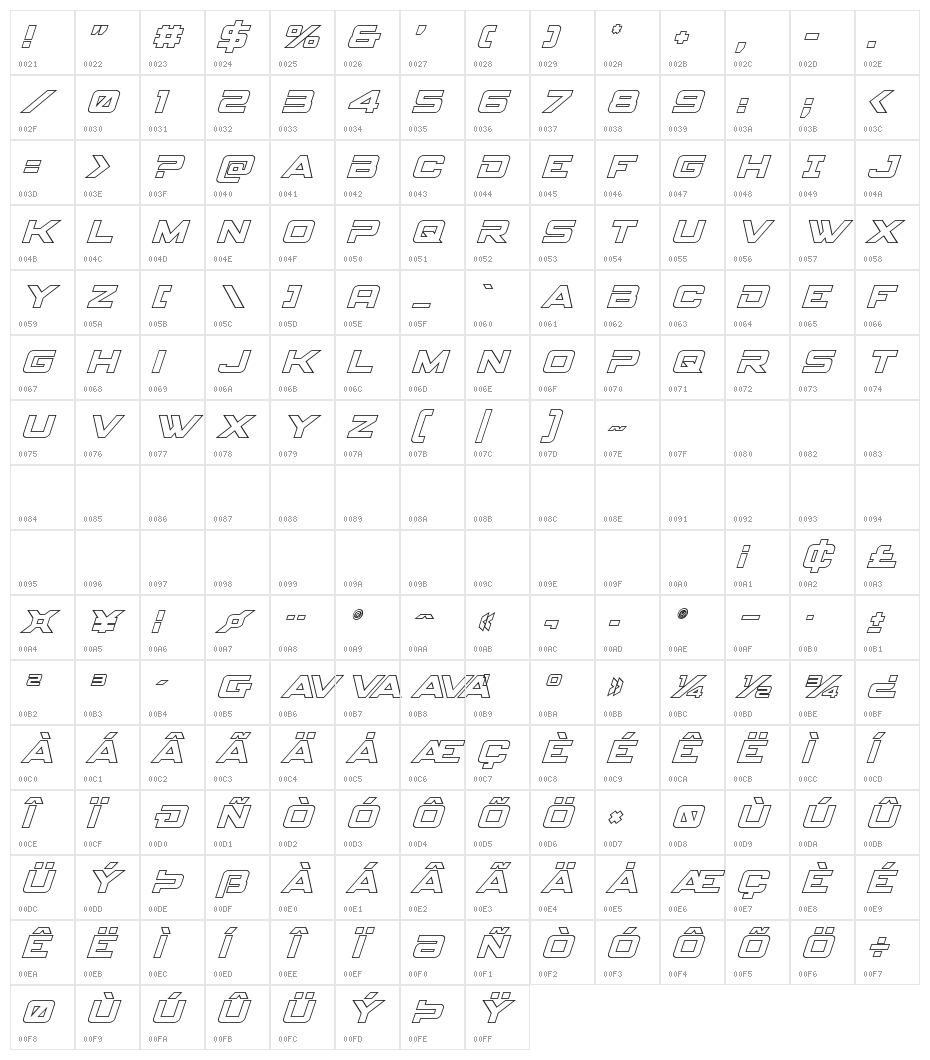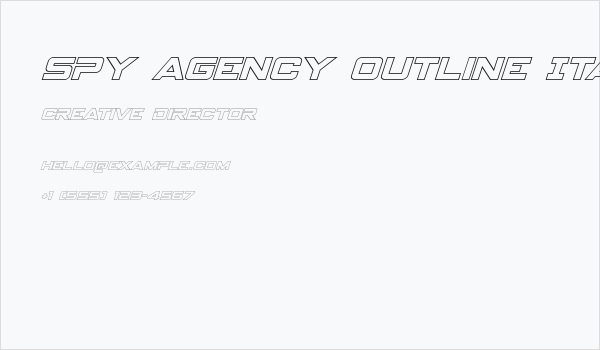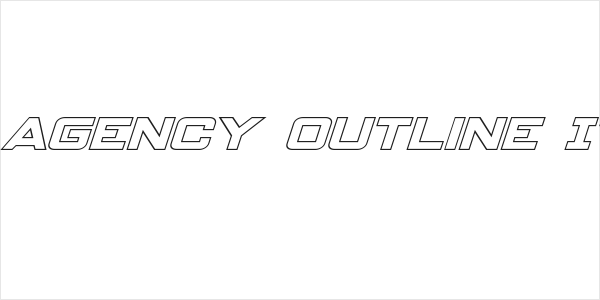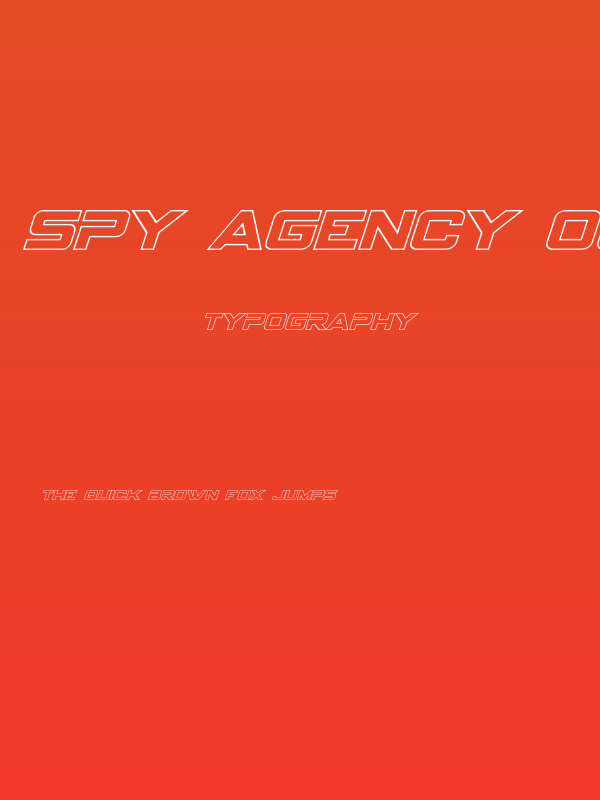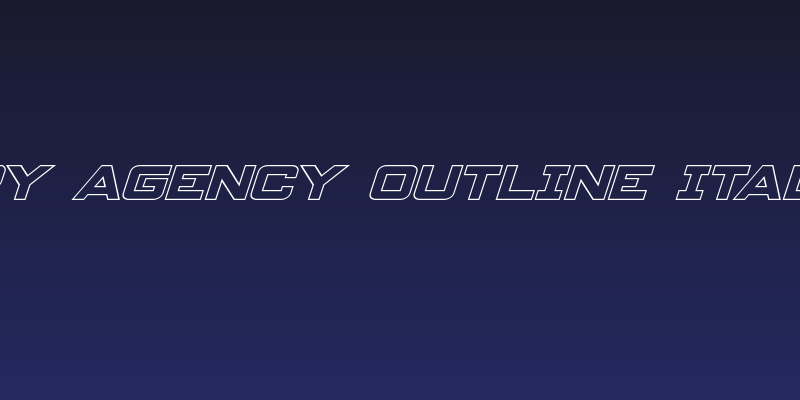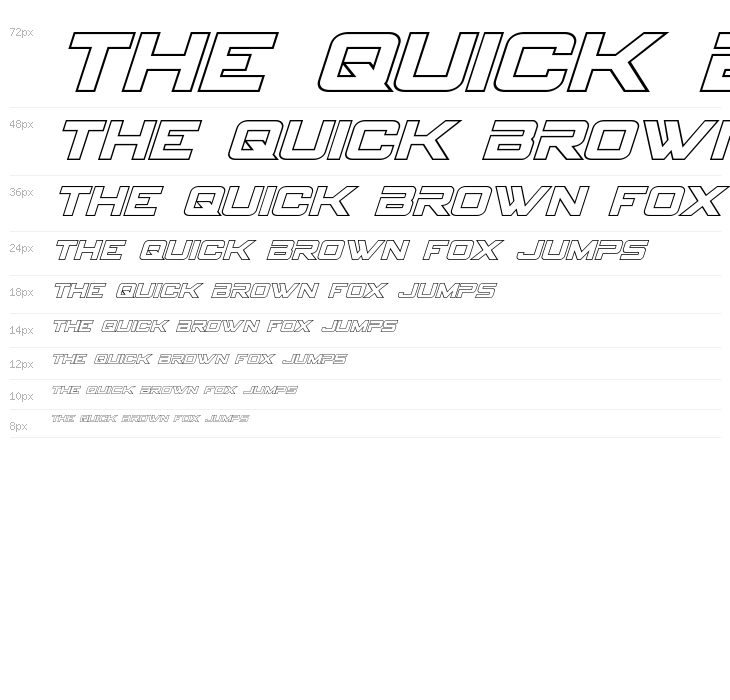
Spy Agency Outline Italic Font
Spy Agency Outline Italic Description
This font features a bold, italicized outline style that gives it a dynamic and futuristic appearance. The characters are designed with a geometric precision, showcasing sharp angles and clean lines. The uppercase letters are particularly striking, with a consistent slant that adds to the sense of motion and speed. The numbers and special characters maintain the same stylistic approach, ensuring uniformity across all glyphs. This font's outline design allows for creative layering and color play, making it versatile for various design applications. Its modern aesthetic is ideal for projects that require a contemporary and edgy look.
Proposed ProjectsIdeal for use in technology branding, sci-fi themed designs, video game titles, and modern advertising campaigns.